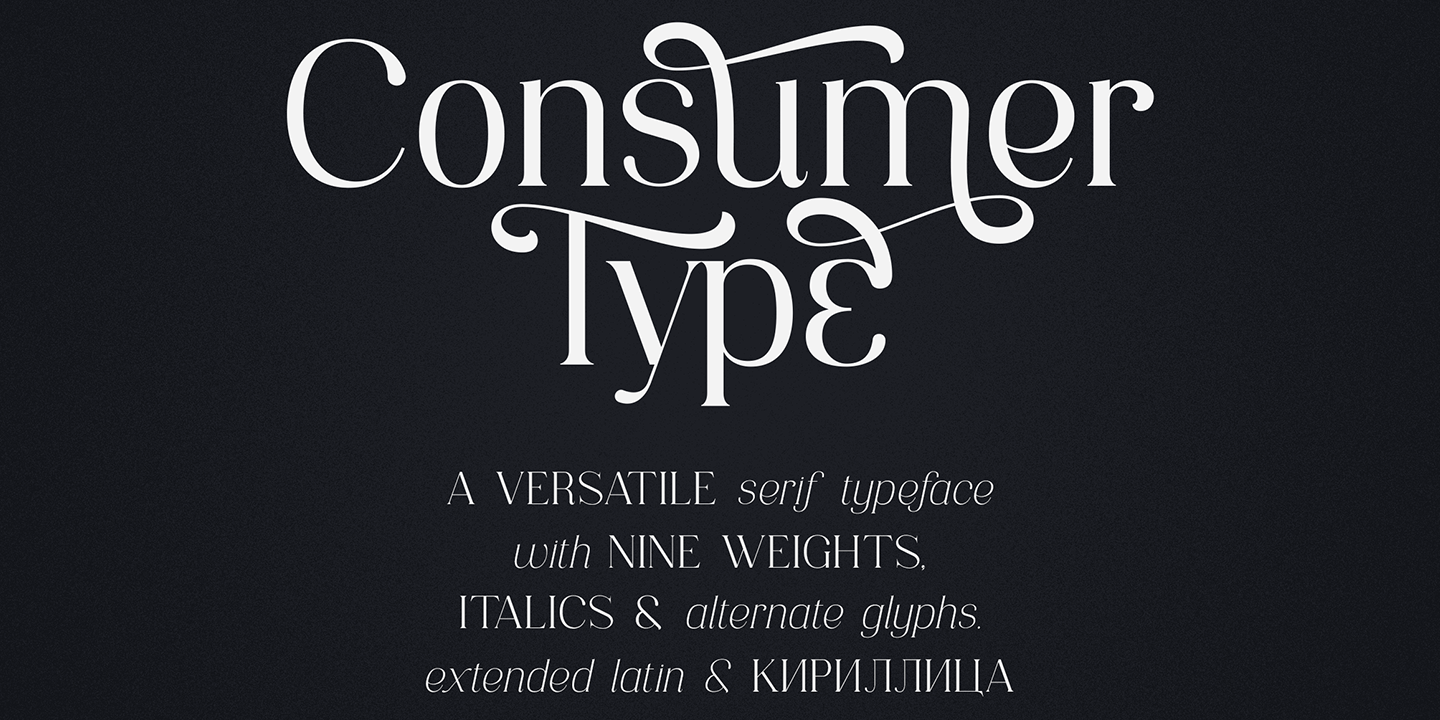
Consumer Type Font is perfect for retail chain branding, product packaging design, shopping center signage, consumer electronics marketing, mass market advertising campaigns, grocery store promotions, mainstream magazine layouts, and everyday commercial communications.
Consumer Type Font is exciting because it speaks directly to the pulse of modern commerce with its approachable letterforms that balance trustworthy familiarity with contemporary appeal. The typeface embodies the democratic spirit of accessible design, creating an immediate sense of reliability and consumer-friendly communication that resonates with everyday shoppers and mainstream audiences across all demographics.
Consumer Type Font family includes Light, Regular, Medium, Bold, and Black weights, each with matching oblique styles and extensive retail-focused punctuation marks, providing designers with versatile tools for creating compelling commercial communications that drive purchasing decisions and brand loyalty.
Whether you're developing a major retail brand's identity, designing mass market product packaging, or creating consumer-focused advertising campaigns, Consumer Type Font Free Download delivers unmatched accessibility and commercial effectiveness. This practical typeface perfectly balances cost-conscious functionality with engaging personality, ensuring your marketing messages cut through retail noise while maintaining the kind of approachable clarity that builds consumer trust. The font's optimized legibility and versatile character make it particularly effective for high-volume commercial applications where consistent brand recognition drives sales success. Retail marketing professionals consistently choose Consumer Type Font when projects require typography that communicates value, reliability, and the kind of mainstream appeal that connects with diverse consumer bases, making it indispensable for retail branding, product packaging, and any application where commercial typography must perform in competitive marketplace environments while building lasting relationships between brands and the consumers who power modern commerce.